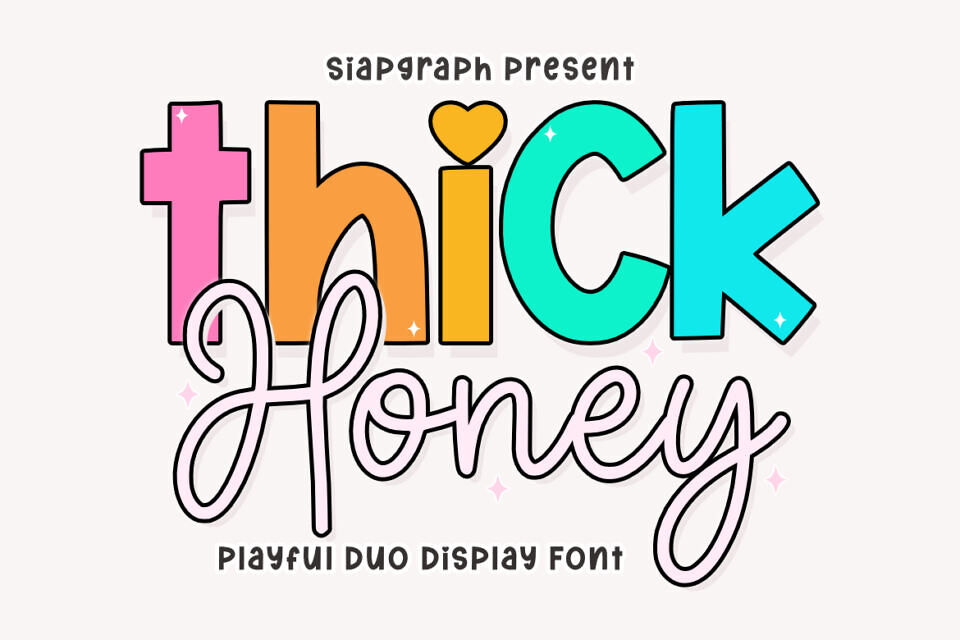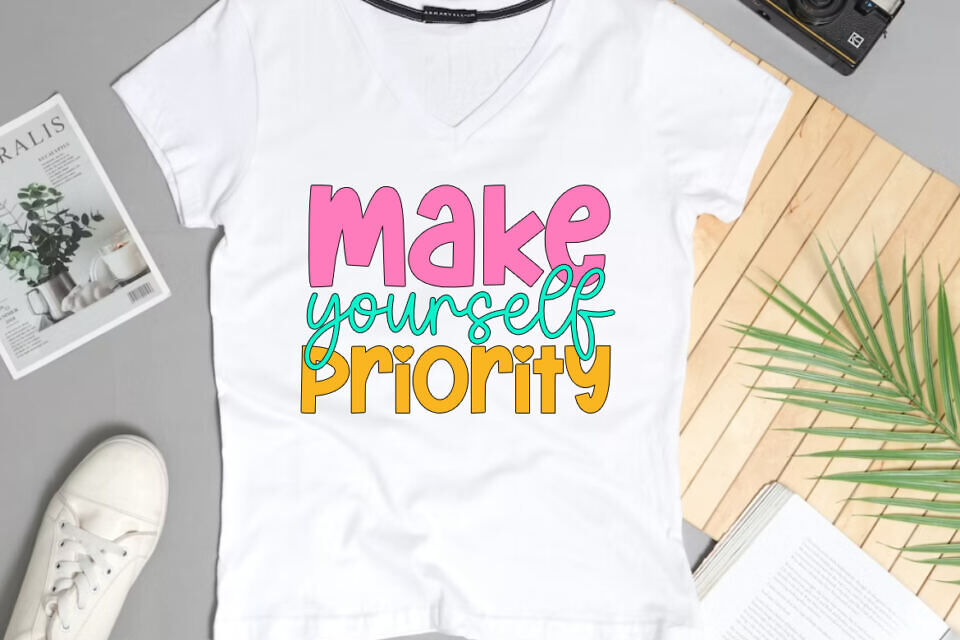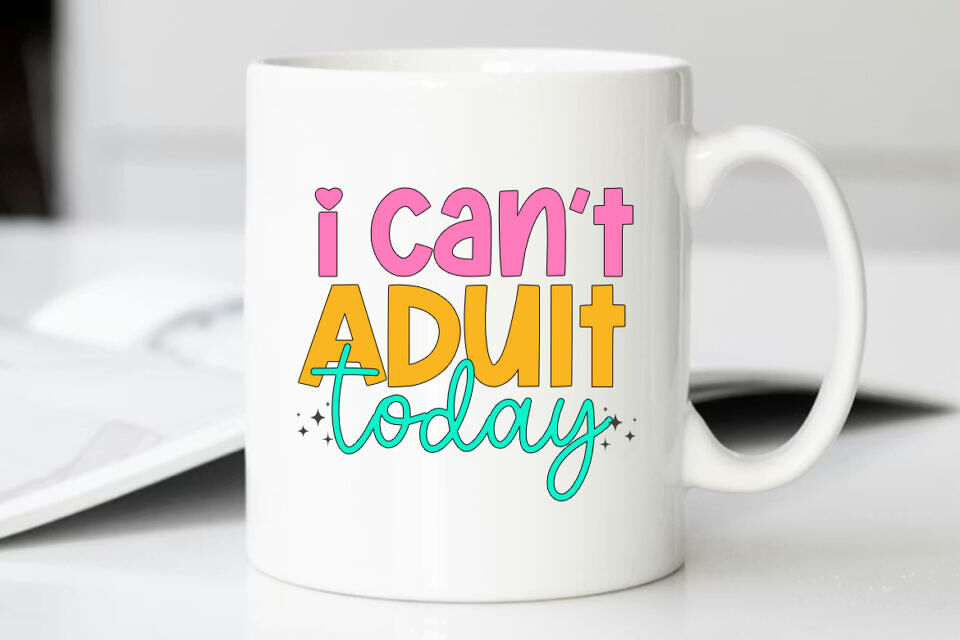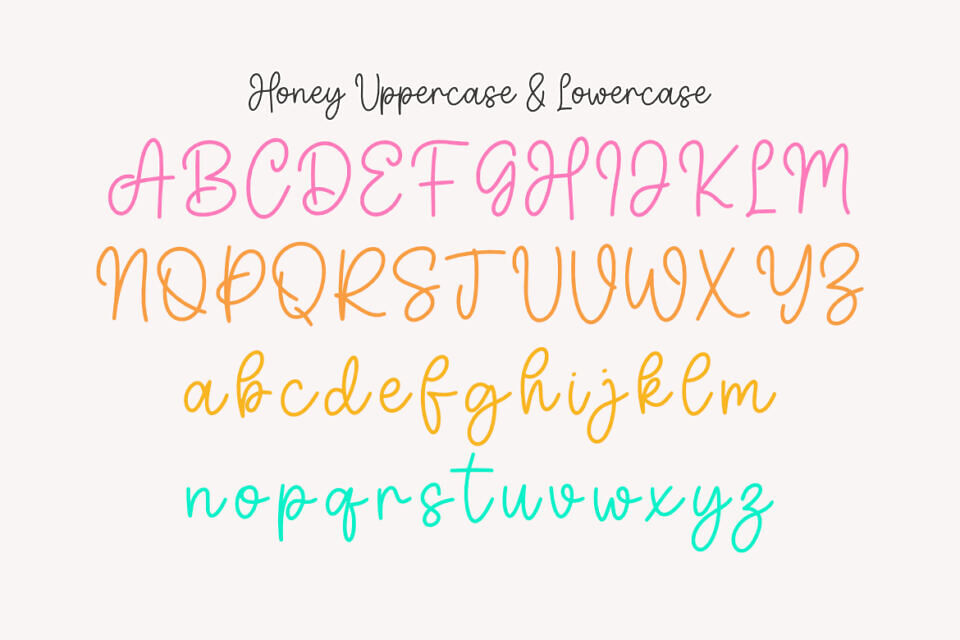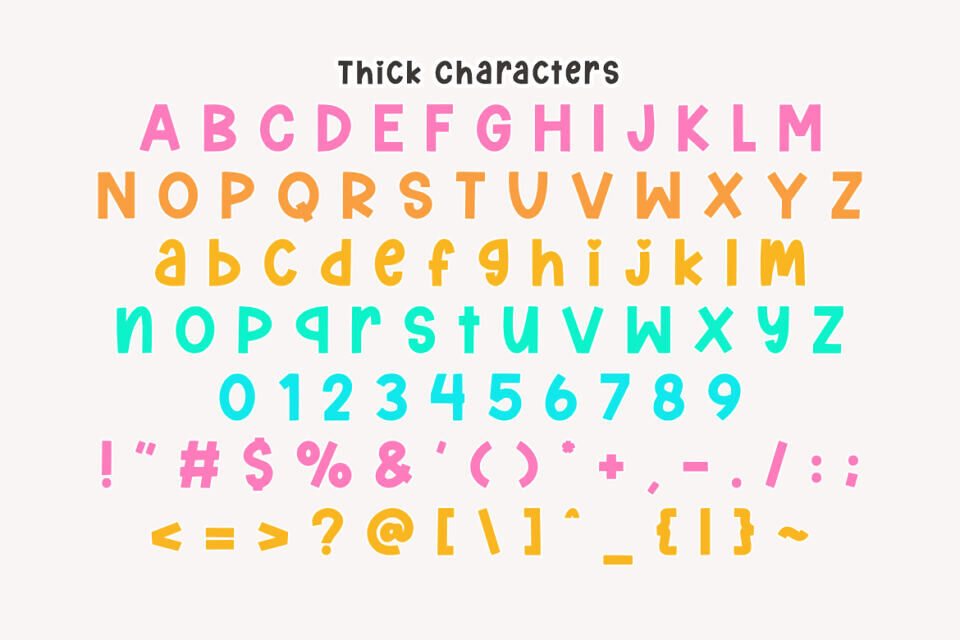
Thick Honey is a playful duo display font inspired by the sweetness of modern hand-lettering and the cheerful aesthetic of bubbly, handcrafted typography. This versatile pair combines a bold, chunky sans-serif with a graceful monoline script, providing a perfectly balanced look for any creative project.
Perfect for creating high-quality SVG cut files, personalized t-shirts, adorable mug designs, custom vinyl stickers, nursery wall art, and heartwarming greeting cards. It is also an excellent choice for branding, social media quotes, digital journals, and unique packaging that requires a friendly, approachable touch.